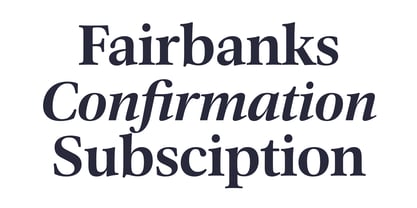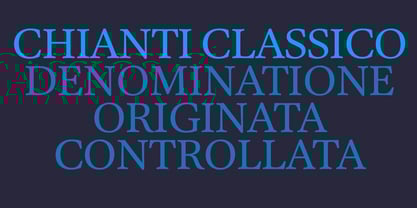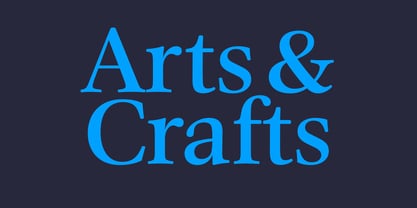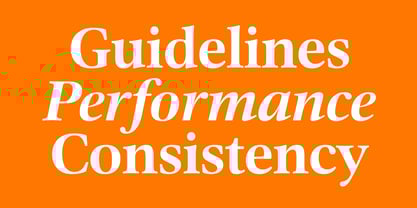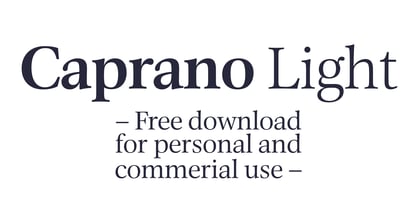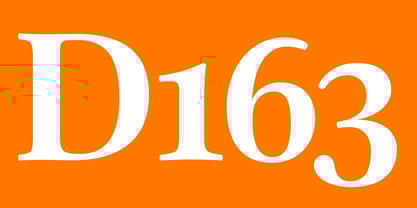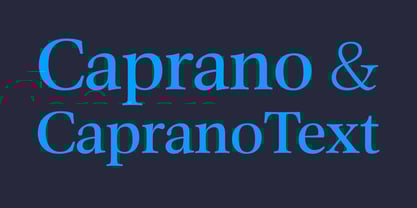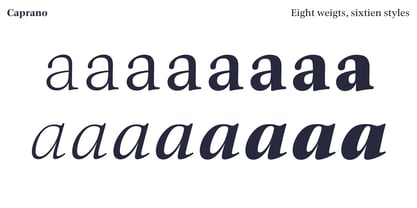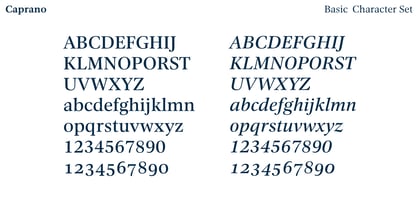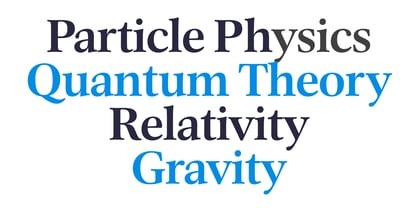
Caprano
by Hoftype
The Caprano Font Family was designed by Dieter Hofrichter and published by Hoftype. Caprano contains 16 styles and family package options. More about this family
Caprano is a lively and pleasant reading type. It contains all the functional virtues of classical text types like Palatino, Baskerville, and others in the category transitional type. Caprano, however, has a formal concept of its own. A dynamic style, and slightly rounded corners are its characteristic feature. These lend it its individuality, namely, understated but lively warmth and charm - with a slight rustic flavour.
Designers: Dieter Hofrichter
Foundry: Hoftype